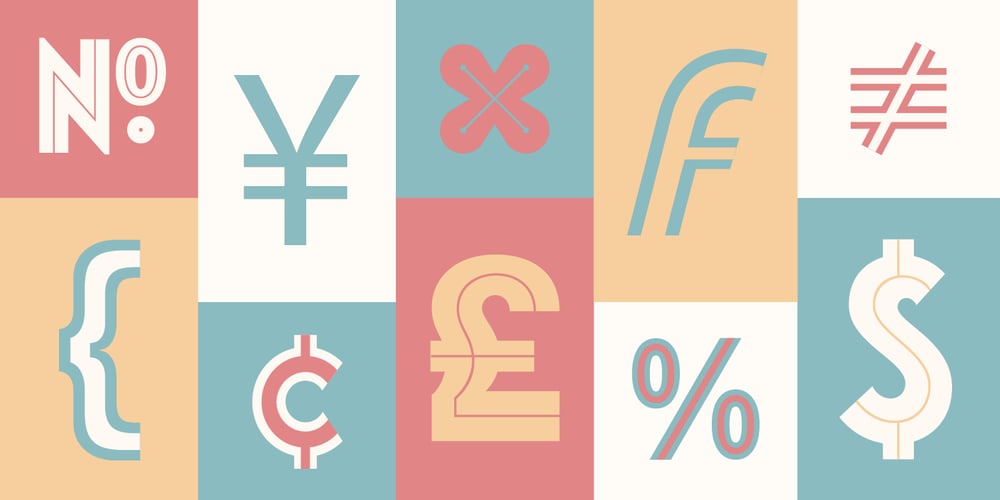
Roloi Font Family was designed by Joshua Mayfield and published by Mayfield Type Foundry. Roloi contains 3 styles and family package options. Originally inspired by the numerals on a vintage clock face, Roloi is a layered numbers font in the deco lettering style, and includes a full set of automatic clock symbols. Its geometric forms are typical of the deco style, but stop well-short of pure geometry. The irregular stroke and character widths work together to give the forms a warm and energetic, yet cohesive, feel. Roloi offers two layering styles—the personable Fill and the more dynamic Inline. Designed to be layered over the background Regular style, they both lend the forms an added level of interest. Roloi also includes a clock symbol for any and every time of day, rounded to the nearest five-minutes. The regular weight provides the circular clock background, while the Fill and Inline styles produce the clock hands. If ligatures are activated in your text-editing program, type out any time—such as 9:32, 12:05, etc.—and the proper clock symbol will be automatically substituted. Go ahead, type any time out below! To stop the automatic clock symbol substitution, simply deactivate ligatures. Because the clock symbols are standard ligatures, every major modern browser will support their use on the web. With some programing they could even be used to make a lightweight, text-only clock. In addition to the clock symbols and basic numerals, Roloi’s glyph range covers numeric superiors and inferiors, standard and arbitrary fractions, currency symbols, all of the punctuation and symbols commonly associated with currency, unicode clock Face symbols, the A M P / a m p letters, and alternates of the 1, 2, and 4, accessible by selecting Stylistic Set 1.